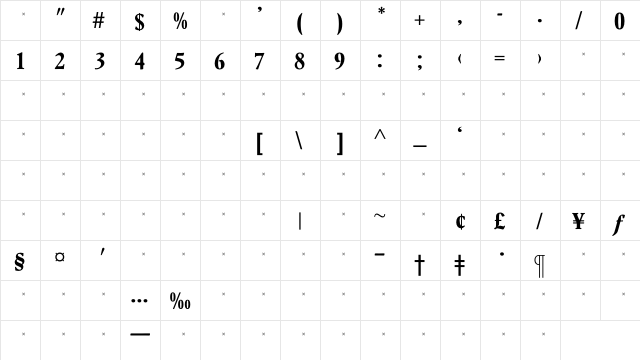
LeightonBoldCondTab Regular Font Preview
Design Context for LeightonBoldCondTab Typeface
LeightonBoldCondTab takes a measured approach to typography — its balanced proportions and neutral character make it a reliable workhorse for both digital and print work. The heavy weight commands attention and anchors typographic hierarchies. The condensed width makes it efficient for tight spaces without sacrificing legibility.